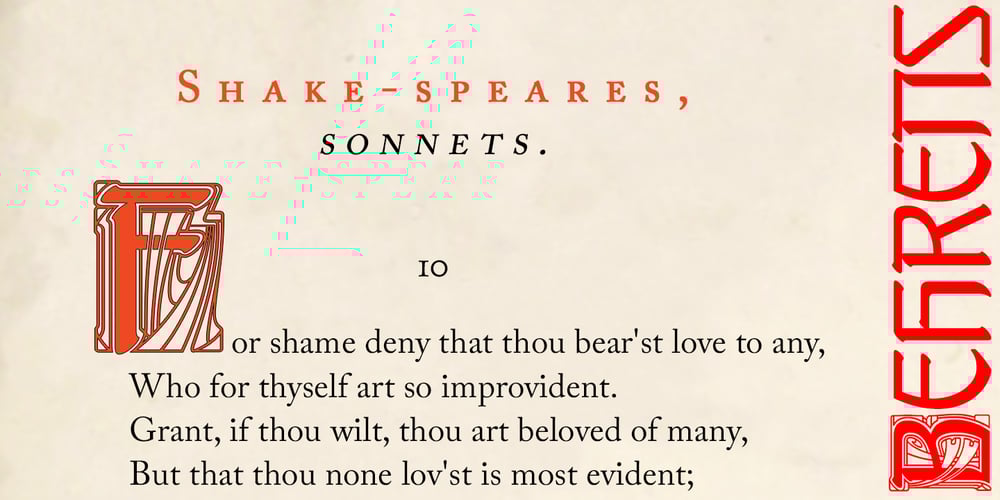
ArTarumianBehrensInitialen Font Family was designed by Ruben Hakobyan (Tarumian) and published by Tarumian. ArTarumianBehrensInitialen contains 1 styles and family package options. Behrens Initialen is based on the type graphics of the German architect and type designer Peter Behrens (1868-1940). The drawing of the original typeface is in tune with the Art Nouveau (Jugendstil) style in which Behrens worked. This is a light, delicate, somewhat theatrical typeface, the forms of which bear at the same time a certain shade of Gothic and modernity, and can be used, in particular, when there is a need to make a reference to medieval graphics while maintaining the modern style of composition.In the proposed version, the original initial graphics are used not only for uppercase letters, but also for Arabic figures, while for lowercase letters and for the base of other characters are used the letters themselves – without decorative framing. This feature can be useful for obtaining various effects when using both lower and upper cases in parallel, including when they are overlaid.The font includes the Latin, Cyrillic and Armenian ranges. Created by Ruben Tarumian in 2020.